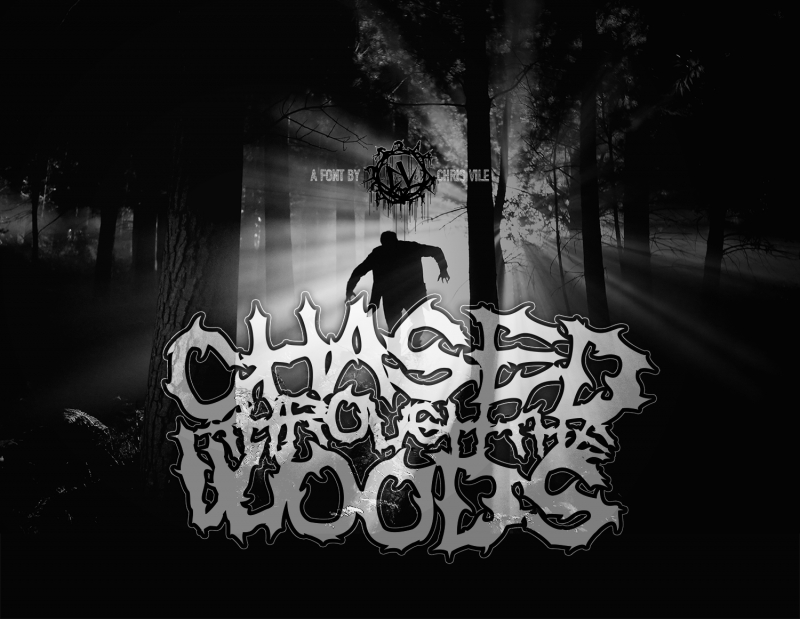
Chased through the woods font
Chased through the Woods Font
A new horror type capable of creating deathmetal, grindcore, metal, and horror logotypes with ease. This is an uppercase case font only.